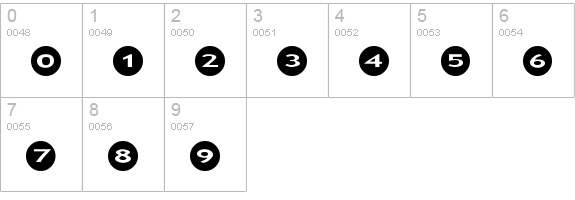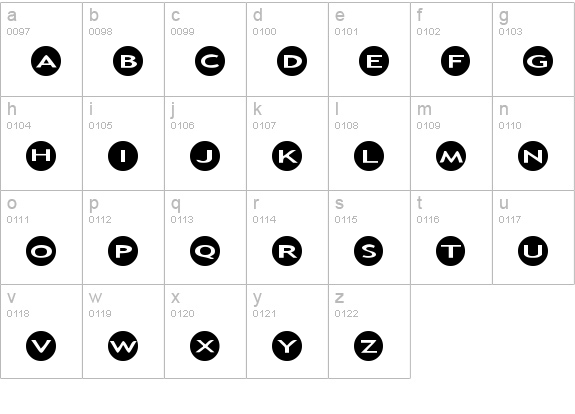
Introducing AlphaShapes Circles Font, a captivating and versatile typeface that will elevate your design projects to new heights. This unique font features a collection of beautifully crafted circles that exude a modern and artistic vibe. With its stylish and eye-catching appearance, AlphaShapes Circles Font is perfect for a wide range of creative applications, from logos and branding to posters and social media graphics. The best part? AlphaShapes Circles Font is completely free to download at FontsMarket.com. Whether you're a seasoned designer looking to add a fresh touch to your work or a novice exploring the world of typography, this font is sure to inspire and impress. Don't miss out on the opportunity to enhance your designs with the stunning AlphaShapes Circles Font - download it today and let your creativity soar!